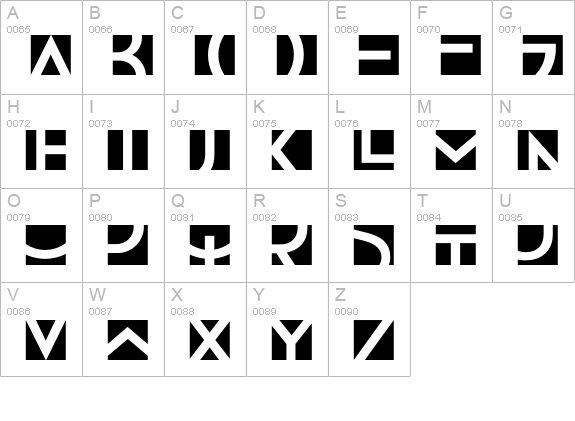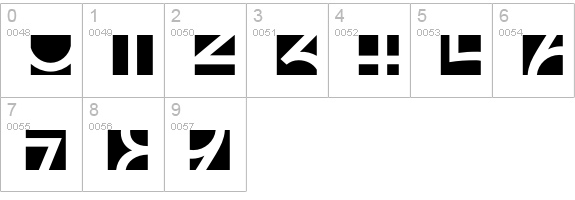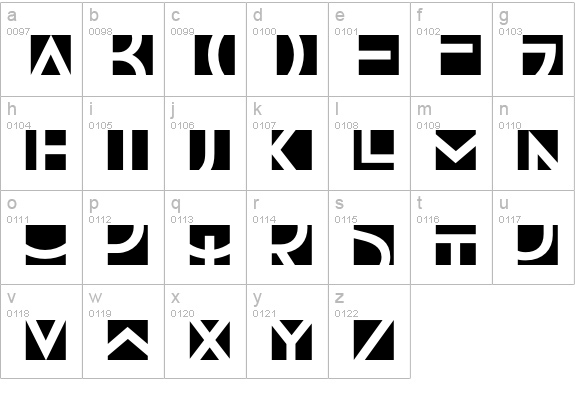
AlphaBloc-Zoom Font Details
Introducing AlphaBloc-Zoom font, a modern and sleek typeface designed to make your designs stand out. With its bold and angular letterforms, AlphaBloc-Zoom exudes a contemporary and dynamic feel, perfect for branding, headlines, posters, and more. This versatile font is sure to add a touch of sophistication to any project. What's even better is that AlphaBloc-Zoom font is completely free to download! Yes, you read that right - you can get your hands on this stylish font at no cost at FontsMarket.com. So why wait? Elevate your designs with AlphaBloc-Zoom today and make a lasting impression.